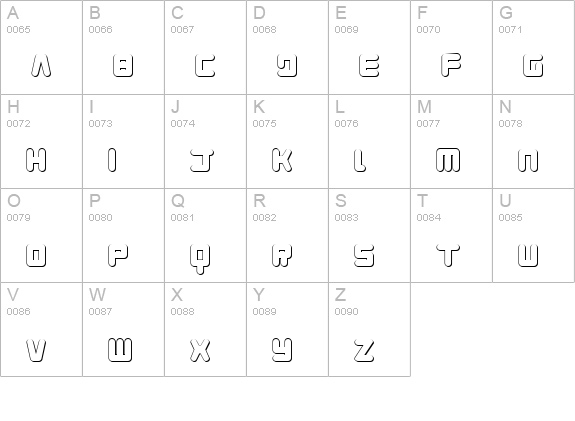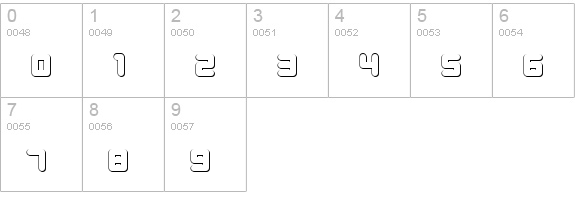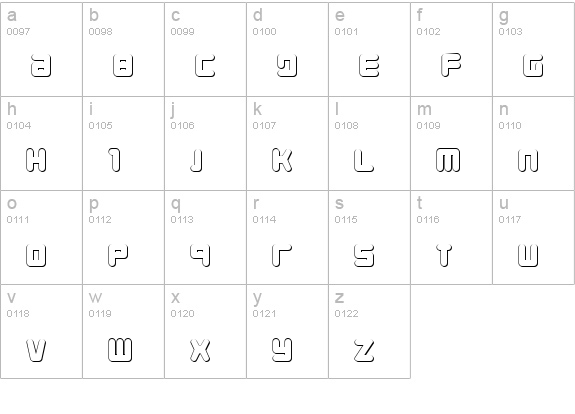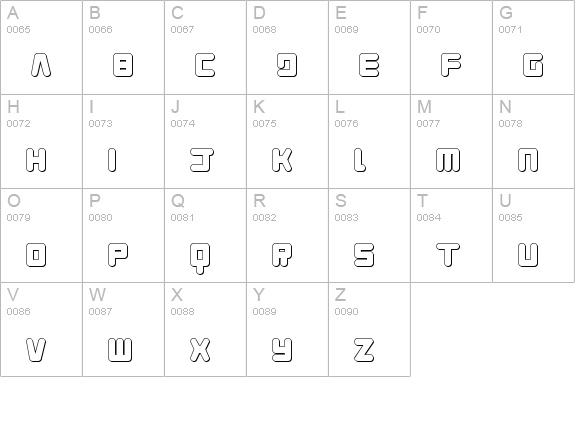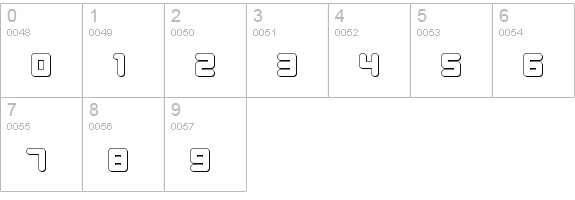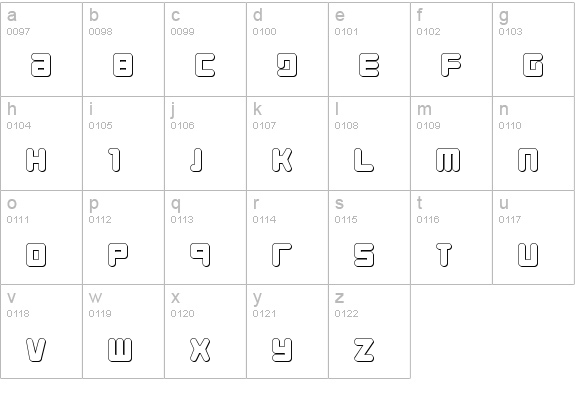
Young Techs 3D Font Details
Young Techs 3D font is a cutting-edge and modern typeface that brings a futuristic flair to any design project. With its sleek 3D effect and bold geometric shapes, this font is perfect for creating eye-catching headlines, logos, and branding materials. Whether you're working on a tech-related project, a futuristic design, or simply looking to add a dynamic touch to your work, Young Techs 3D font is the perfect choice. The best part? Young Techs 3D font is completely free to download at FontsMarket.com, making it accessible to designers, students, and creatives alike. With its seamless integration into various design software and easy usability, this font is a must-have in your typography collection. Elevate your projects with the modern and innovative style of Young Techs 3D font today!